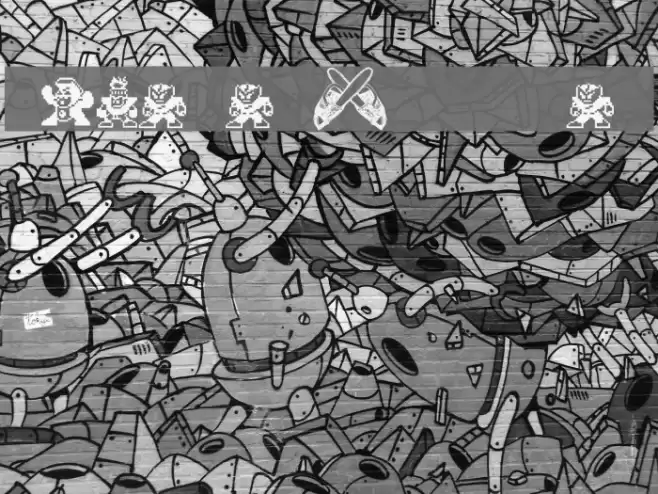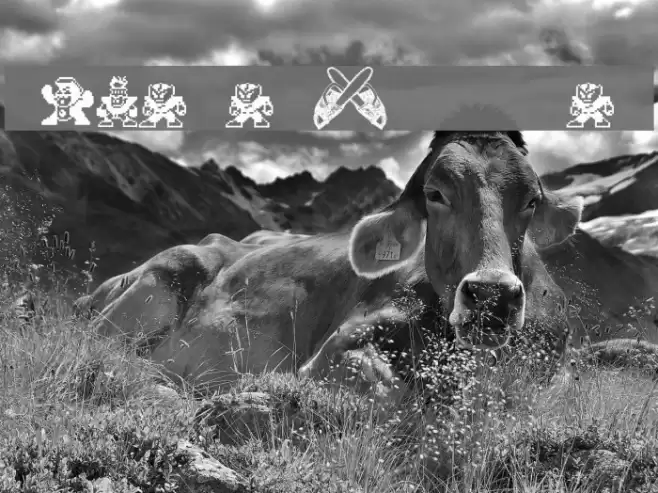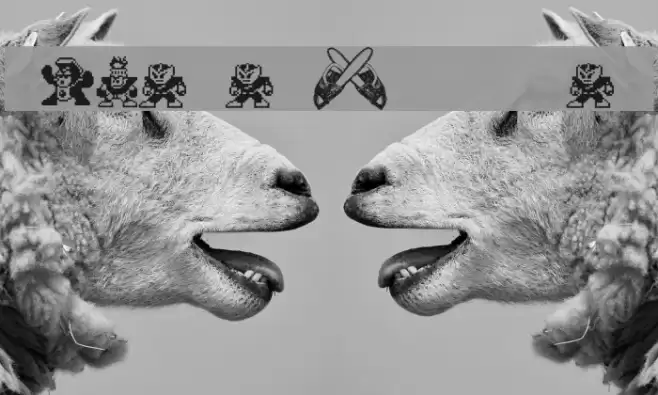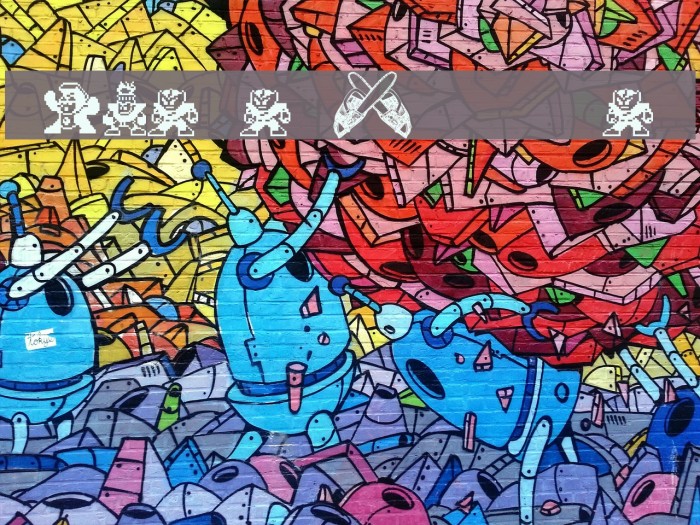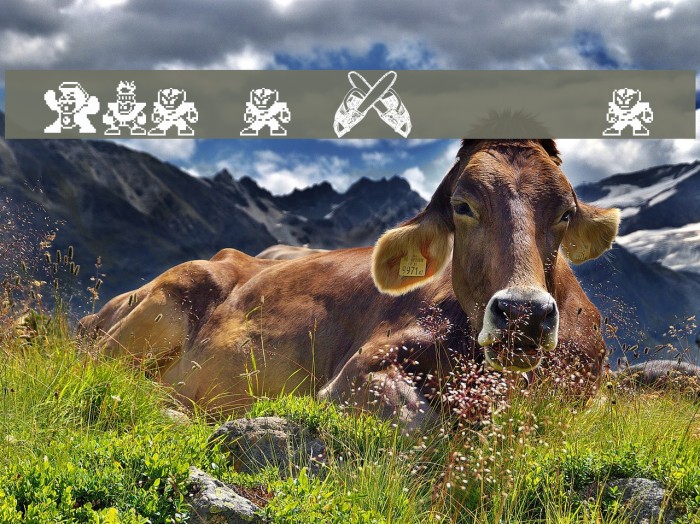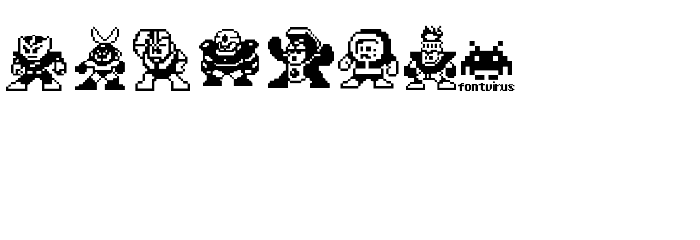
MegaMan2.Villanz Font
MegaMan2.Villanz Description
A pixel-art style decorative font featuring characters inspired by retro video game villains, each glyph represented by a unique sprite-like figure. The font is monochrome, highly stylized, and visually references 8-bit and 16-bit video game aesthetics.
Pixel-art decorative font with retro video game villain characters from Uncategorized fonts.
- Font: MegaMan2.Villanz
- Proposed Projects: Video game titles, themed posters, event flyers, fan art, novelty merchandise, retro gaming websites.
- Overall Style: Decorative, Retro, Pixel-art
- Use Case: Logos, Headlines, Posters, Themed graphics